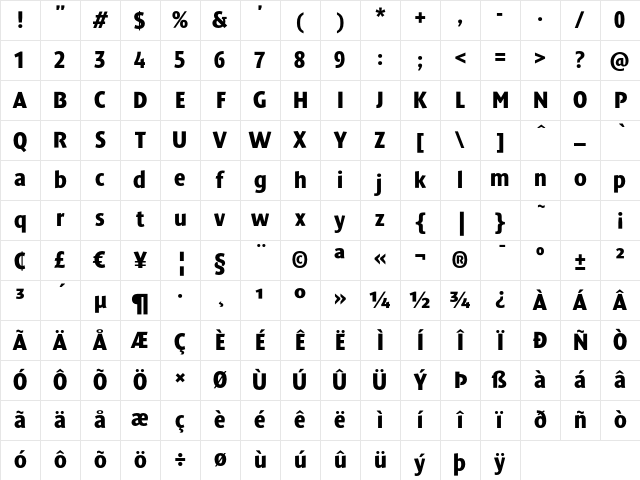
DendaNewCond is a composed and adaptable typeface that performs quietly and consistently across a wide range of design contexts. Its narrow stance lets it pack a punch even in space-constrained designs.